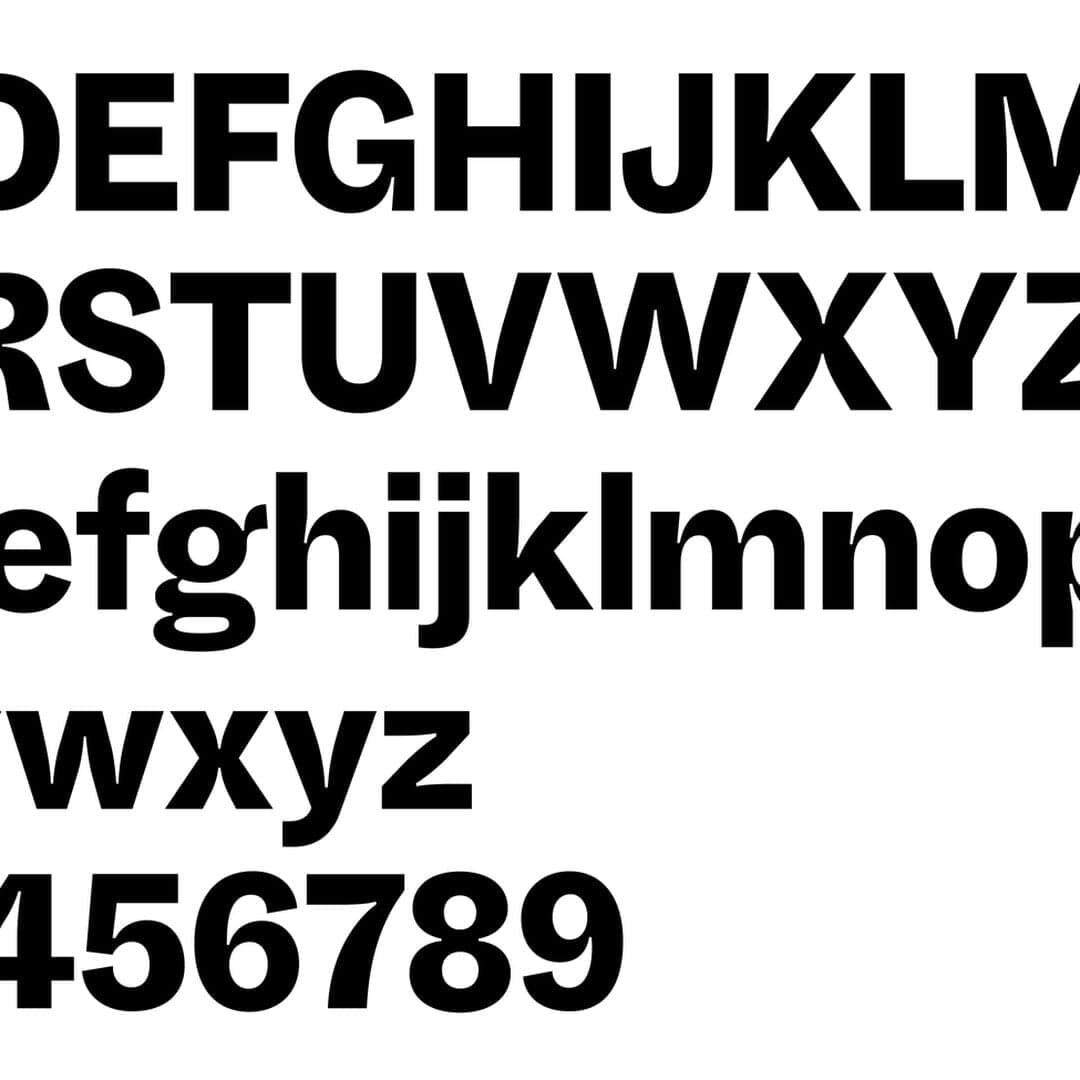
Dinamo created a bespoke title font for The Monthly, an Australian independent periodical, as part of its 2017 redesign. The typeface reflects the publication’s bold and intellectual voice across politics, society, and culture, enhancing its visual identity under the art direction of Paul Mylecharane and Ziga Testen.
Set in a custom typeface